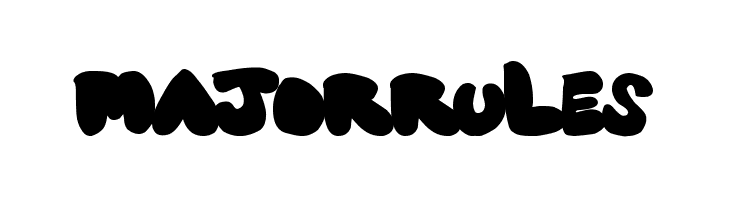
A bold, playful 3D font with a cartoonish, decorative style.
A whimsical, cartoonish dingbat font featuring illustrated faces and totem symbols.
A bold, playful font with a cartoonish, dynamic style and thick outlines.
A playful, outlined font with a cartoonish, dynamic style.
A bold, playful font with rounded, cartoonish characters and tight spacing.
A bold, shadowed font with a playful, cartoonish style.
A playful, doodle-inspired font with bold, rounded characters and cartoonish expressions.
A playful, cartoonish font with a hand-drawn, emerging-from-ground style.